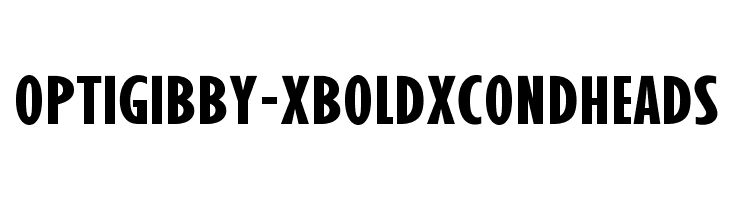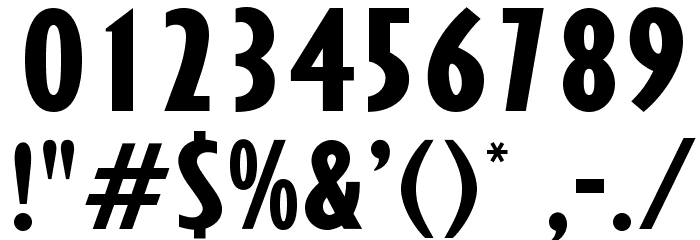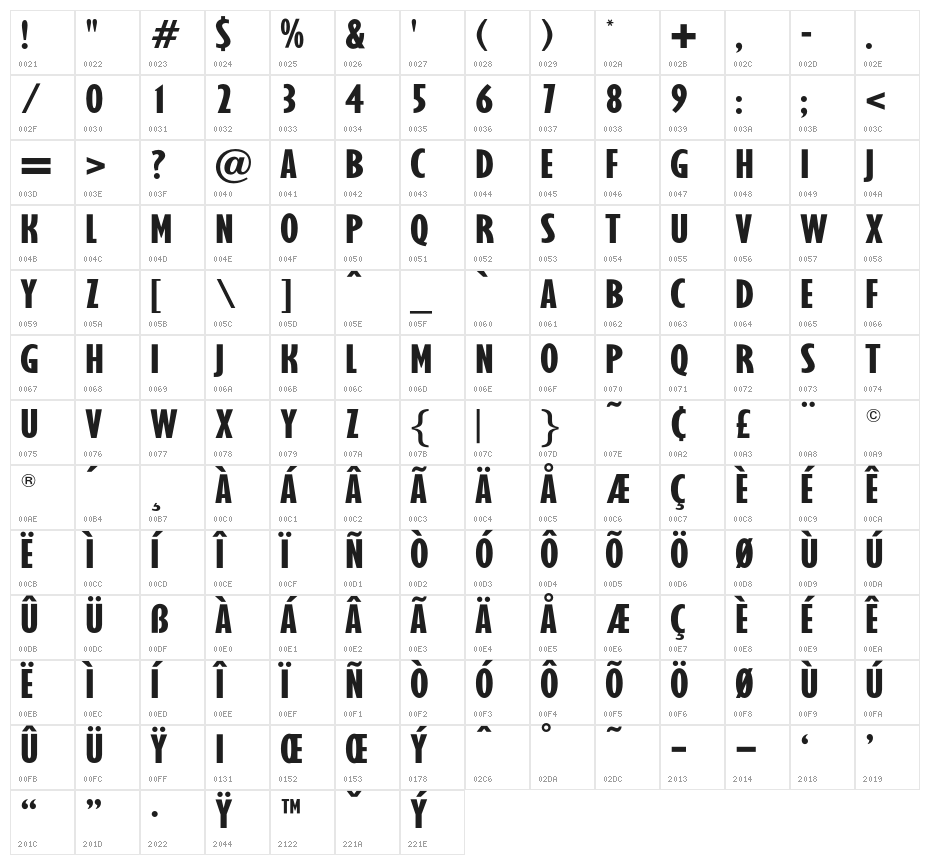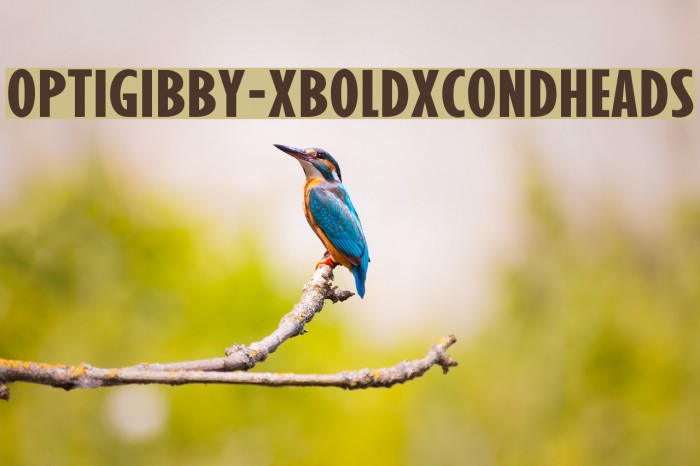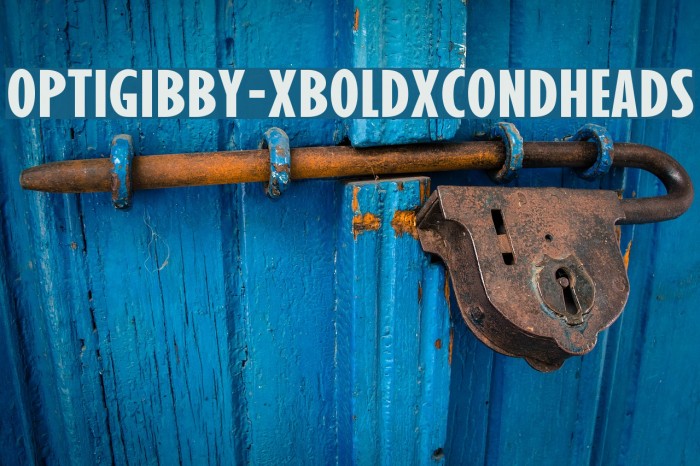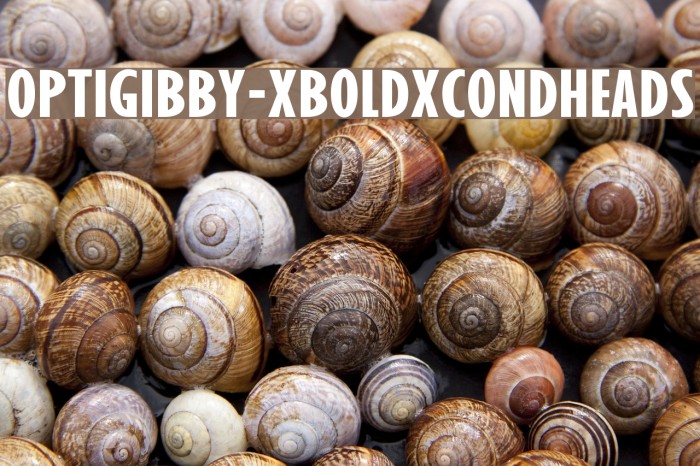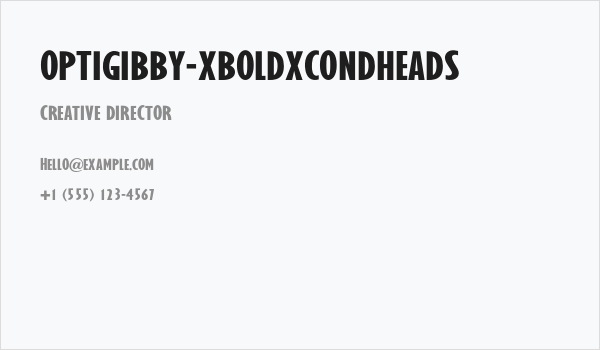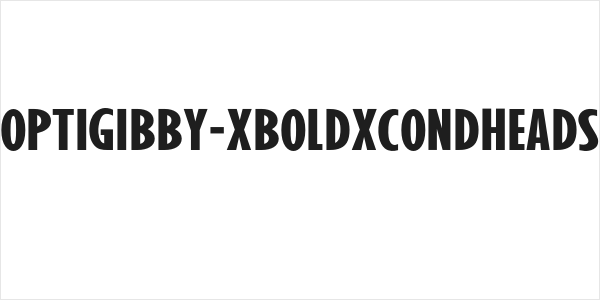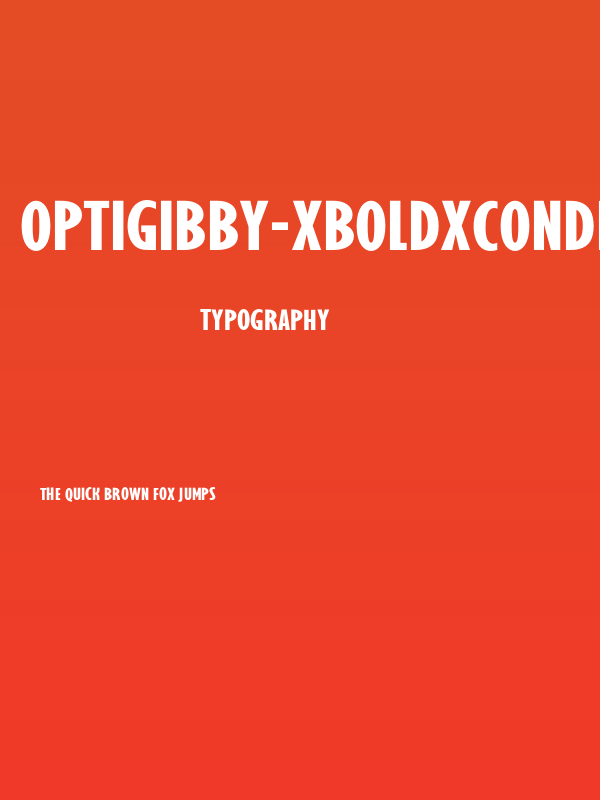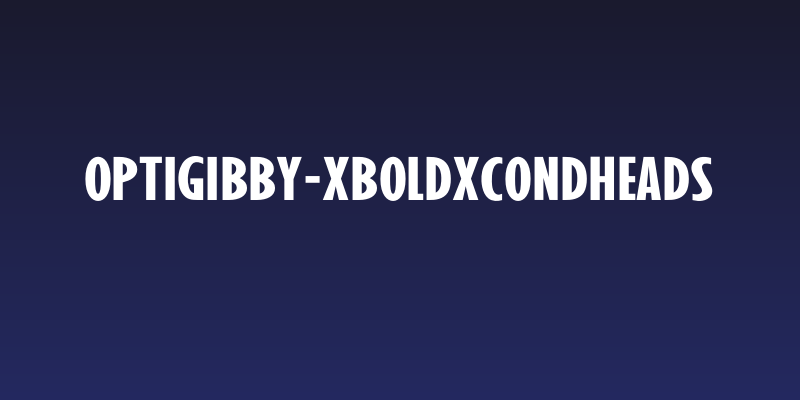
OPTIGibby-XBoldXCondHeads Font
OPTIGibby-XBoldXCondHeads Description
This font features a bold and condensed style, characterized by thick, uniform strokes that create a strong visual impact. The uppercase and lowercase letters are designed with a consistent width, enhancing readability while maintaining a compact appearance. The numerals are equally bold, ensuring they stand out in any context. Special characters are crafted with the same attention to detail, providing a cohesive look across all glyphs. The overall design is modern and assertive, making it suitable for attention-grabbing headlines and impactful graphic design projects.
| Proposed Projects | Ideal for headlines, posters, branding, and any project requiring a bold statement. |